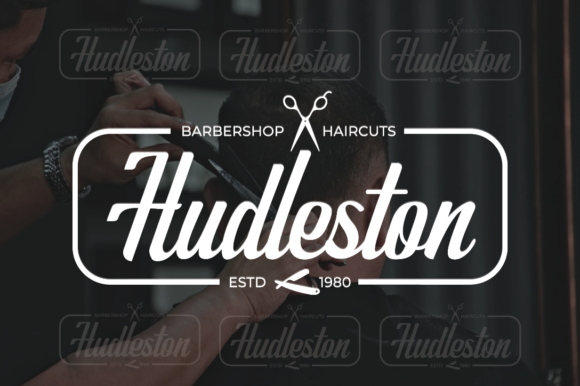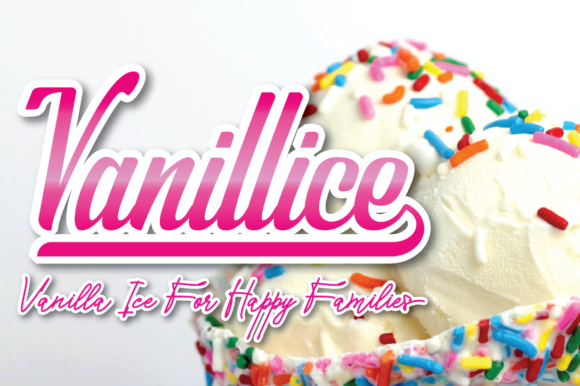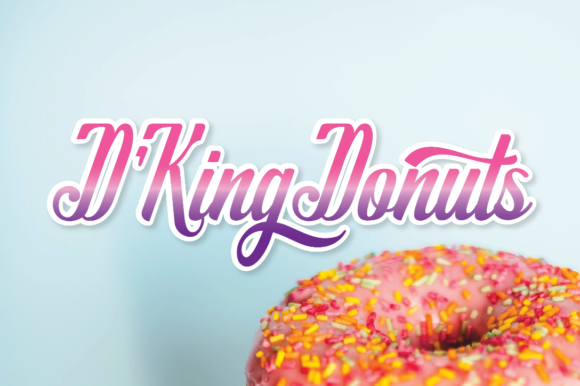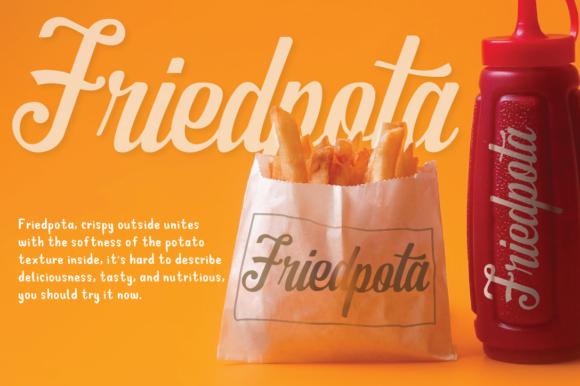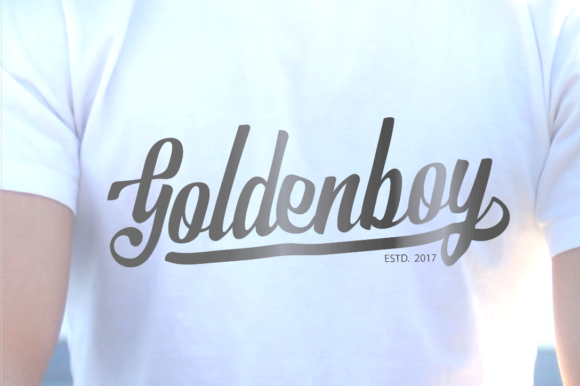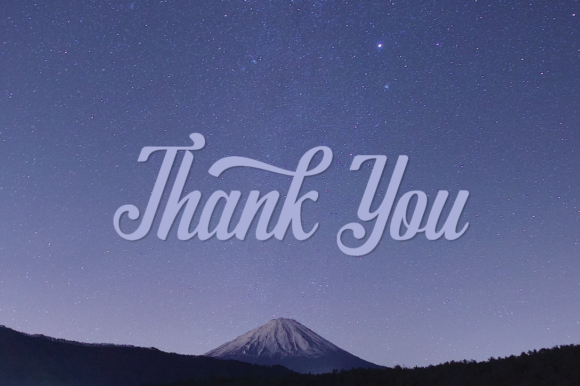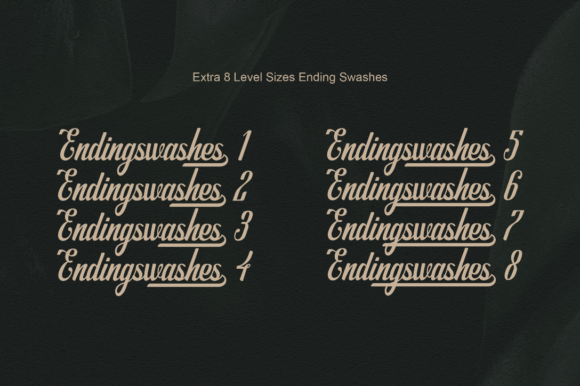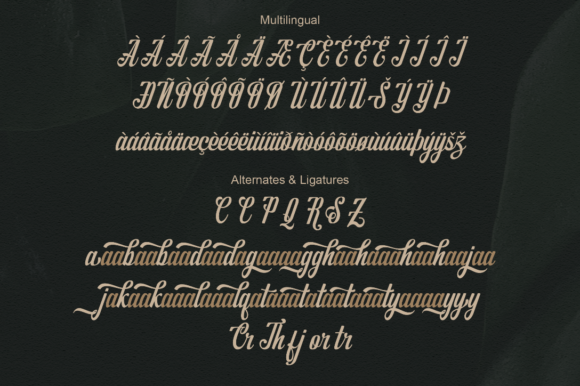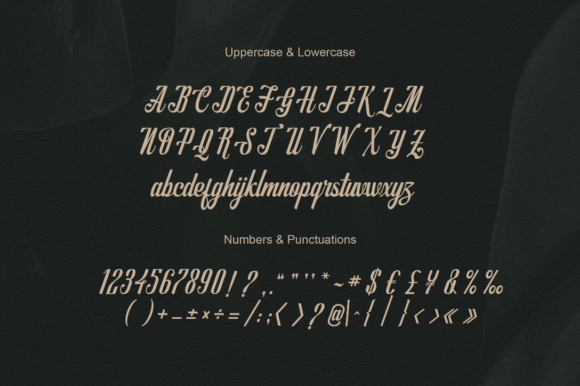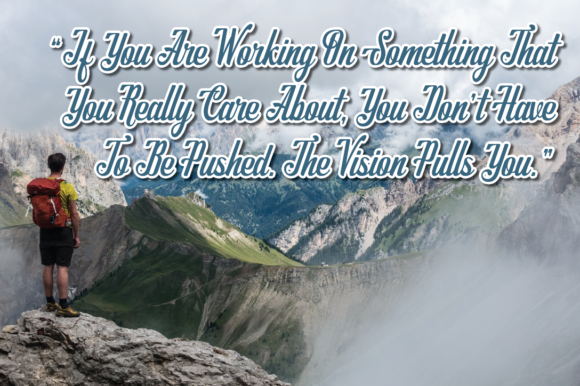
HomeScript FontsQueenetha Font Script Fonts Queenetha Font FacebookXPinterestWhatsApp Queenetha Font Poster 2 Queenetha Font Poster 3 Queenetha Font Poster 4 Queenetha Font Poster 5 Queenetha Font Poster 6 Queenetha Font Poster 7 Queenetha Font Poster 8 Queenetha Font Poster 9 Queenetha Font Poster 10 Queenetha Font Poster 11 Queenetha Font Poster 12 Queenetha Font Poster 13 Queenetha Font Poster 14 Queenetha Font Poster 15 About Queenetha Font Queenetha is a fun and cool handwritten font with a unique style. Get inspired by its powerful feel! DOWNLOAD ON CREATIVE FABRICAThis font is sold and delivered by Creative Fabrica. Font Canyon may earn a commission if you buy through this link. People also explored Geomax Font Douceur Yuniykah Font Bouncer MultiType Lines Narrow Bold 2 Font Green Leaf Font Halittany Badela Font Ziona Font Handytype Font 345 0 TagsQueenetha Font Previous articleLassitude FontNext articleWildflower Font LEAVE A REPLY Cancel reply Comment: Please enter your comment! Name:* Please enter your name here Email:* You have entered an incorrect email address! Please enter your email address here Website: Save my name, email, and website in this browser for the next time I comment. Personal Use Free Salmoni Personal Use Free Read more about this font England Personal Use Free Read more about this font Cranberry Gin Personal Use Free Read more about this font Persephone Free Personal Use Free Read more about this font BLOG How to Cut Any Font on Cricut: Convert a Font to SVG (Free) Turn any font into a clean SVG so it cuts crisp on Cricut - a quick 3-step workflow using a free font-to-SVG tool. Top 10 Handwritten Fonts That Elevate Your Designs Top 7 Google Fonts Alternatives for Faster and Privacy-Friendly Web Design (2025) Best Fonts for T-Shirt Design – Top 2025 Picks